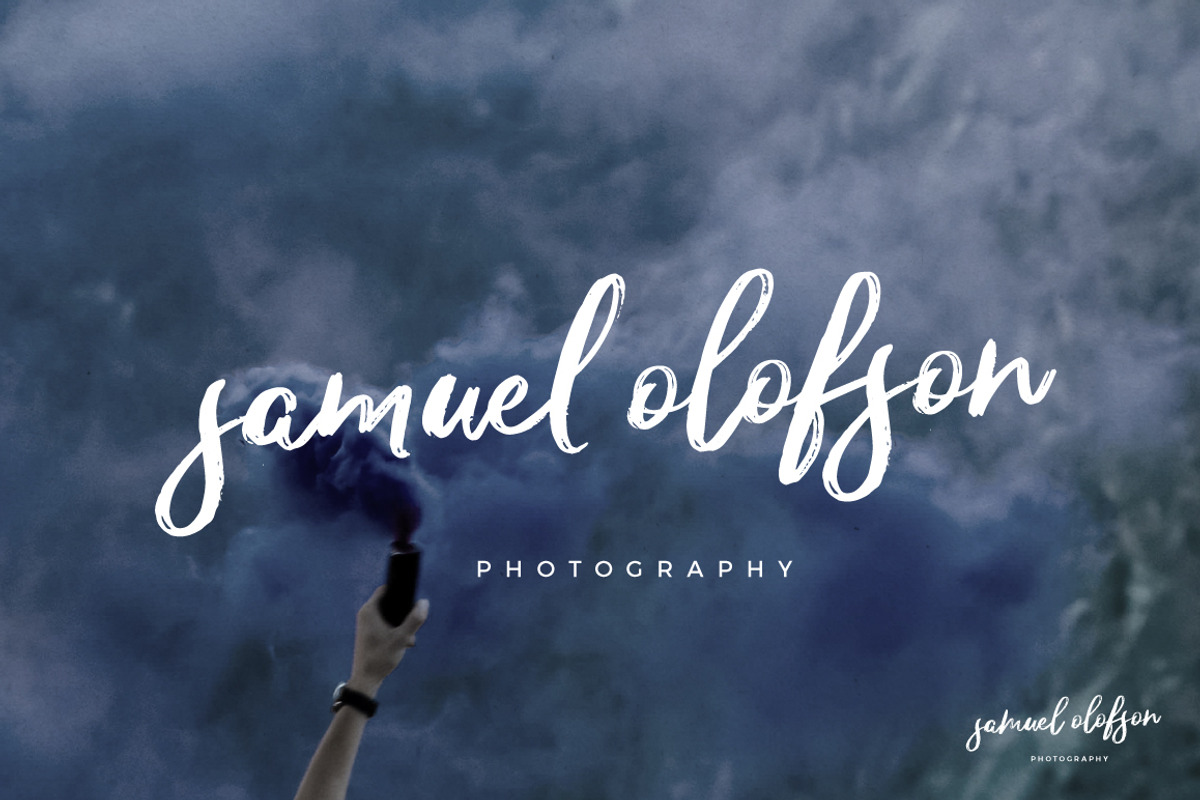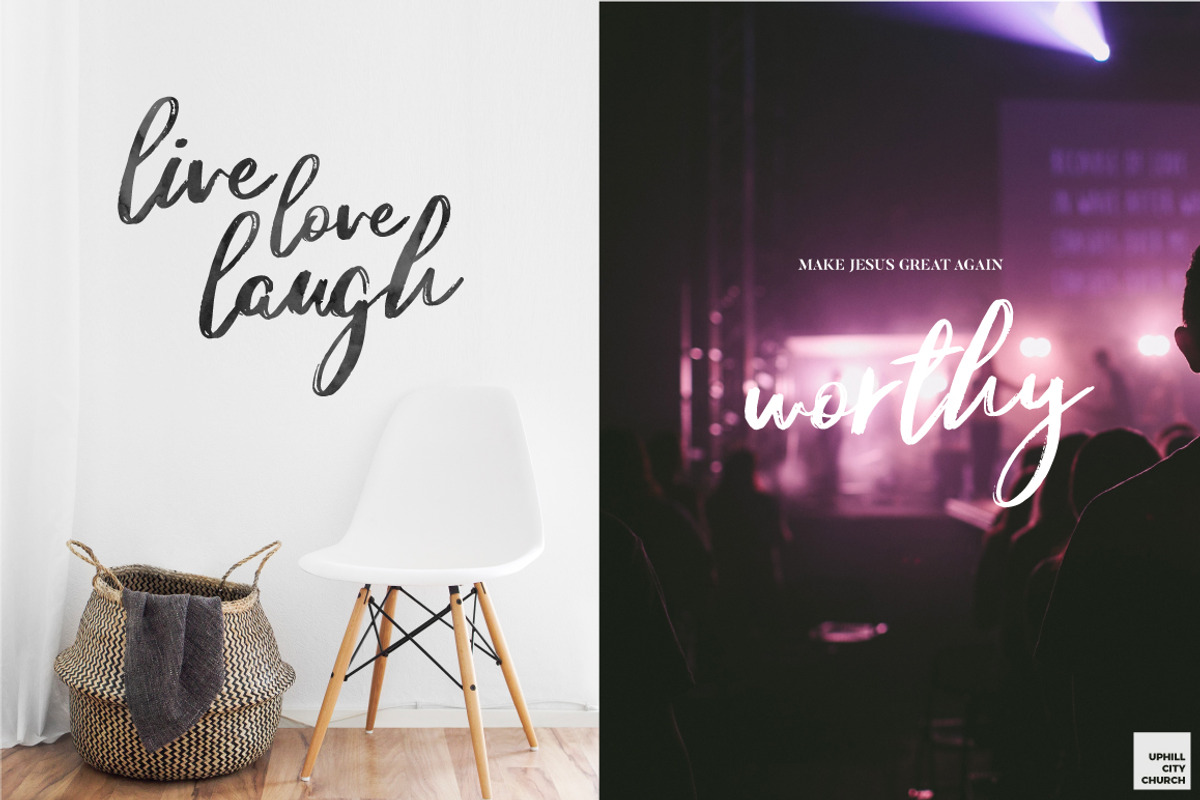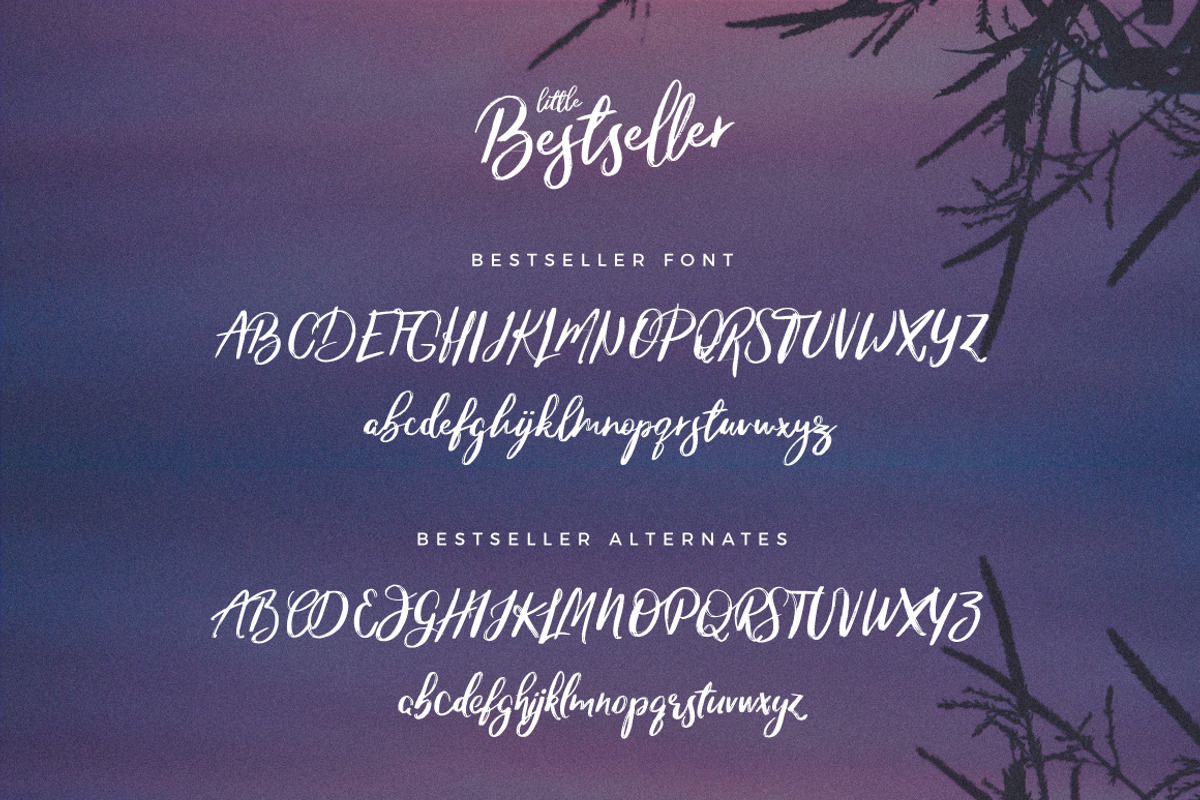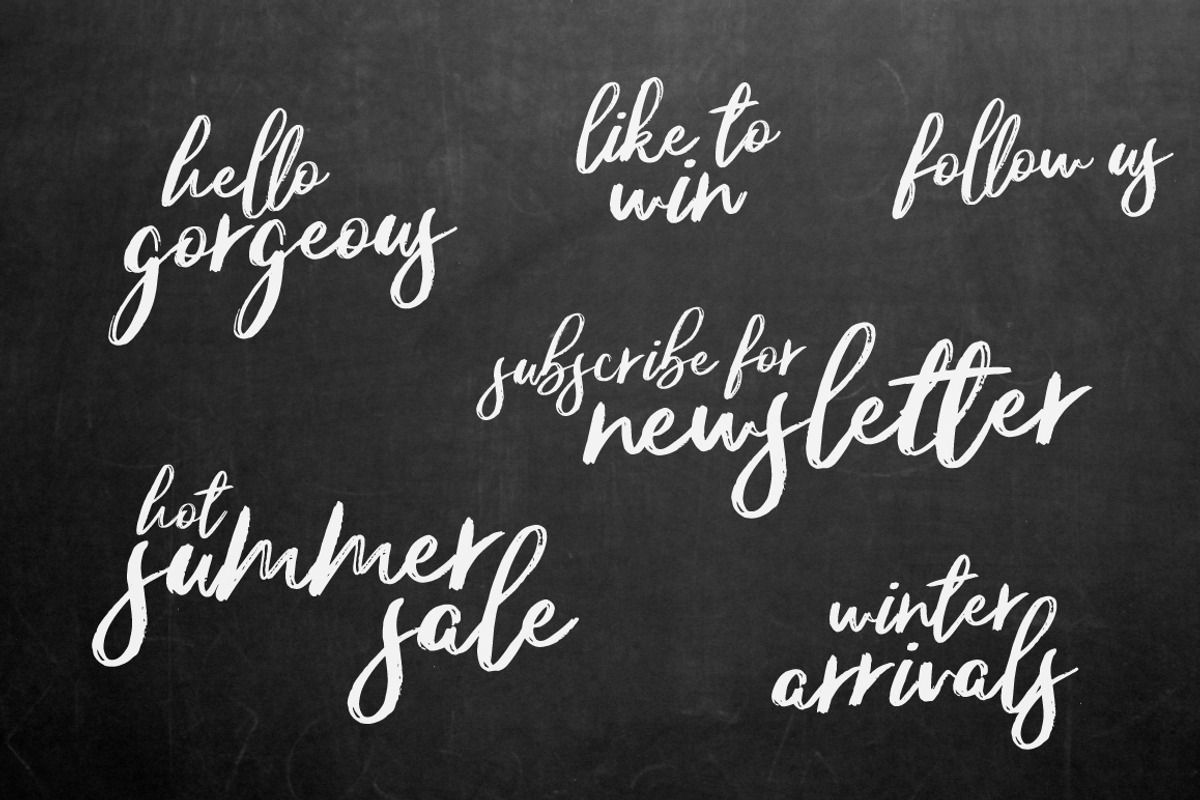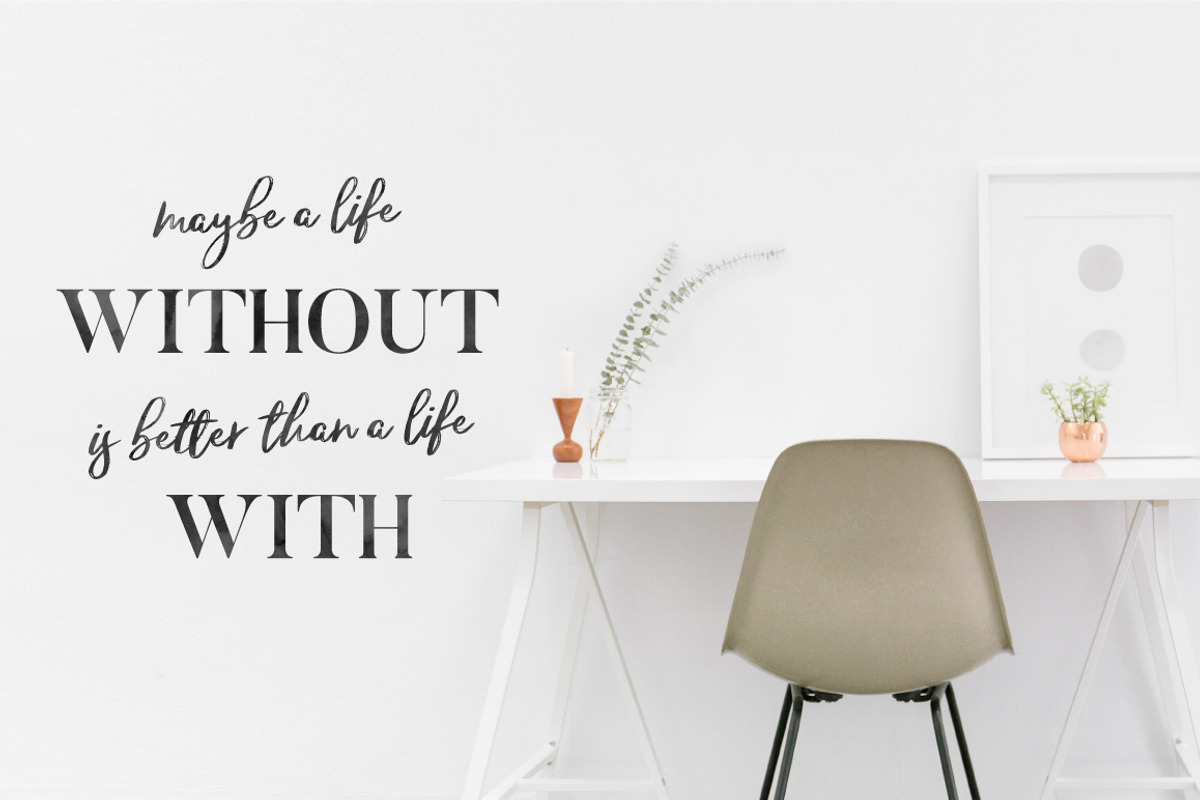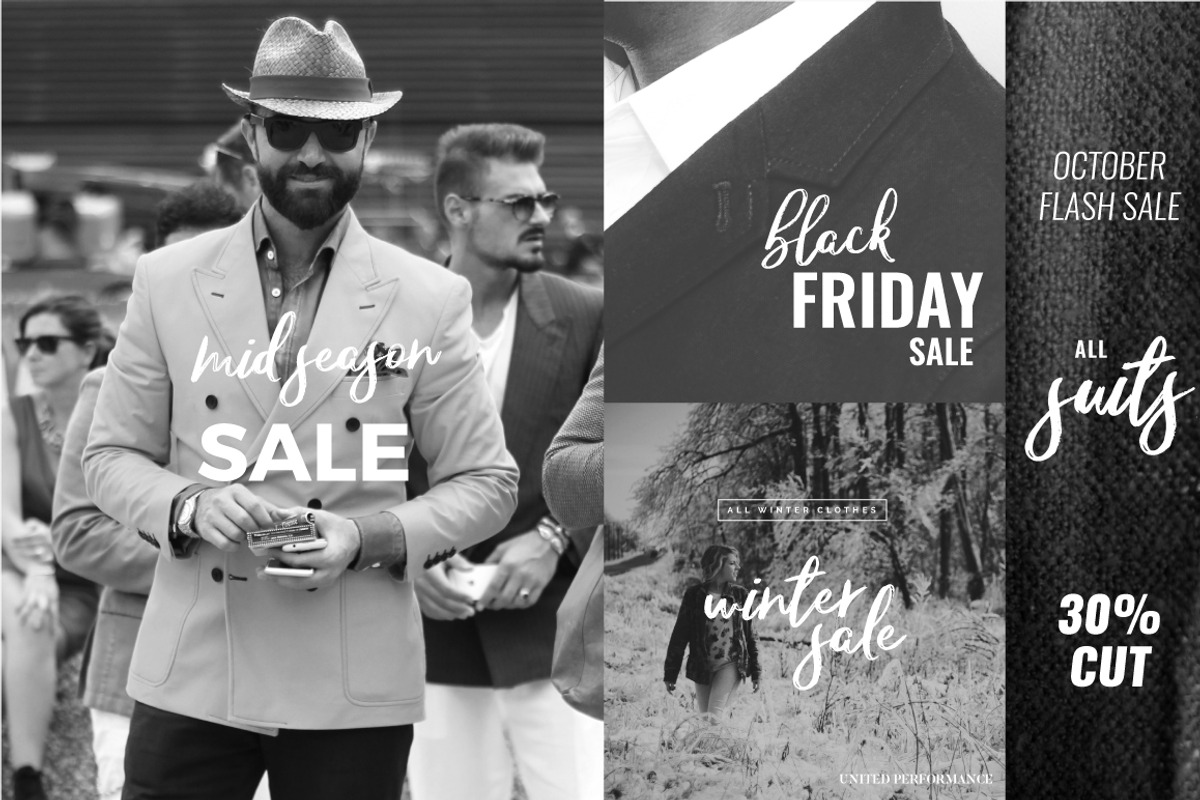
Little Bestseller Script Font
Little Bestseller Script Font by Mats-Peter Forss is a font selected for branding, posters, packaging, typography.
- I think this one turned out pretty well and thealternate characters truly gives it that extra punch to make it more personal in whatever des
- Little Bestseller- Upper and lowercase characters, numerals, punctuations and a wide language support.
- Extra ligatures for more complex letter-combinations like tt and ll.
- Little Bestseller Alternates - Full alternates for upper and lowercase characters to make your design look more awesome!!
Why Little Bestseller Script Font is worth a look
Little Bestseller Script Font by Mats-Peter Forss fits naturally into Branding, posters, packaging, typography.